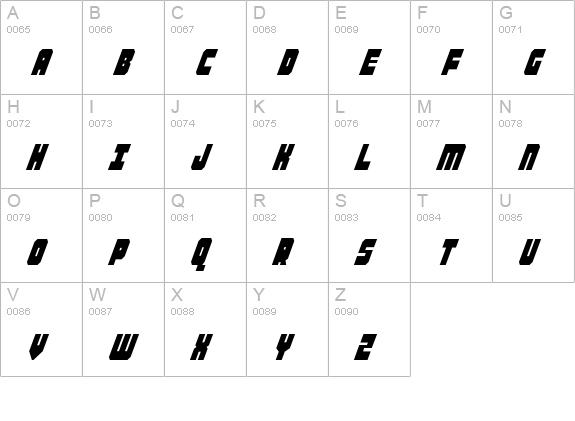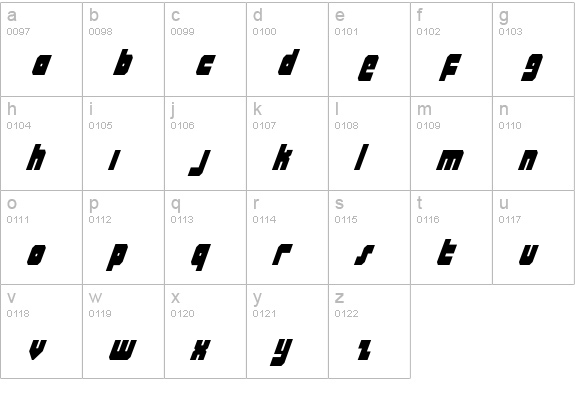
Alpha Taurus CondItalic Font Details
The Alpha Taurus CondItalic font is a sleek and modern typeface that exudes sophistication and elegance. Its unique italic design adds a touch of flair, making it perfect for projects that require a contemporary and stylish look. With its clean lines and balanced proportions, this font is versatile and can be used for a wide range of design applications. Best of all, the Alpha Taurus CondItalic font is available for free download at FontsMarket.com. Whether you're working on a branding project, creating a stunning website, or designing eye-catching printed materials, this font is sure to elevate your work to the next level. Don't miss out on the opportunity to enhance your projects with this exquisite typeface that is both professional and visually striking. Download the Alpha Taurus CondItalic font today and unleash your creativity!